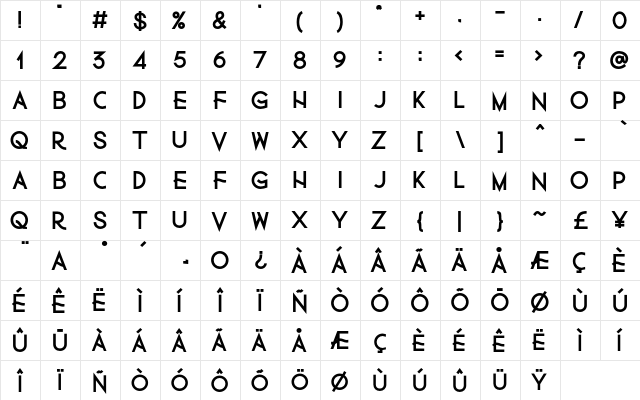
Ch Games Black
Design Context for Ch Games Typeface
Ch Games is a composed and adaptable typeface that performs quietly and consistently across a wide range of design contexts.